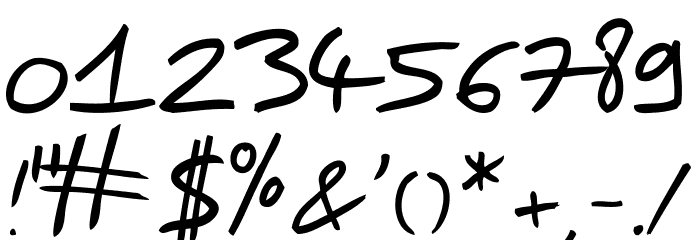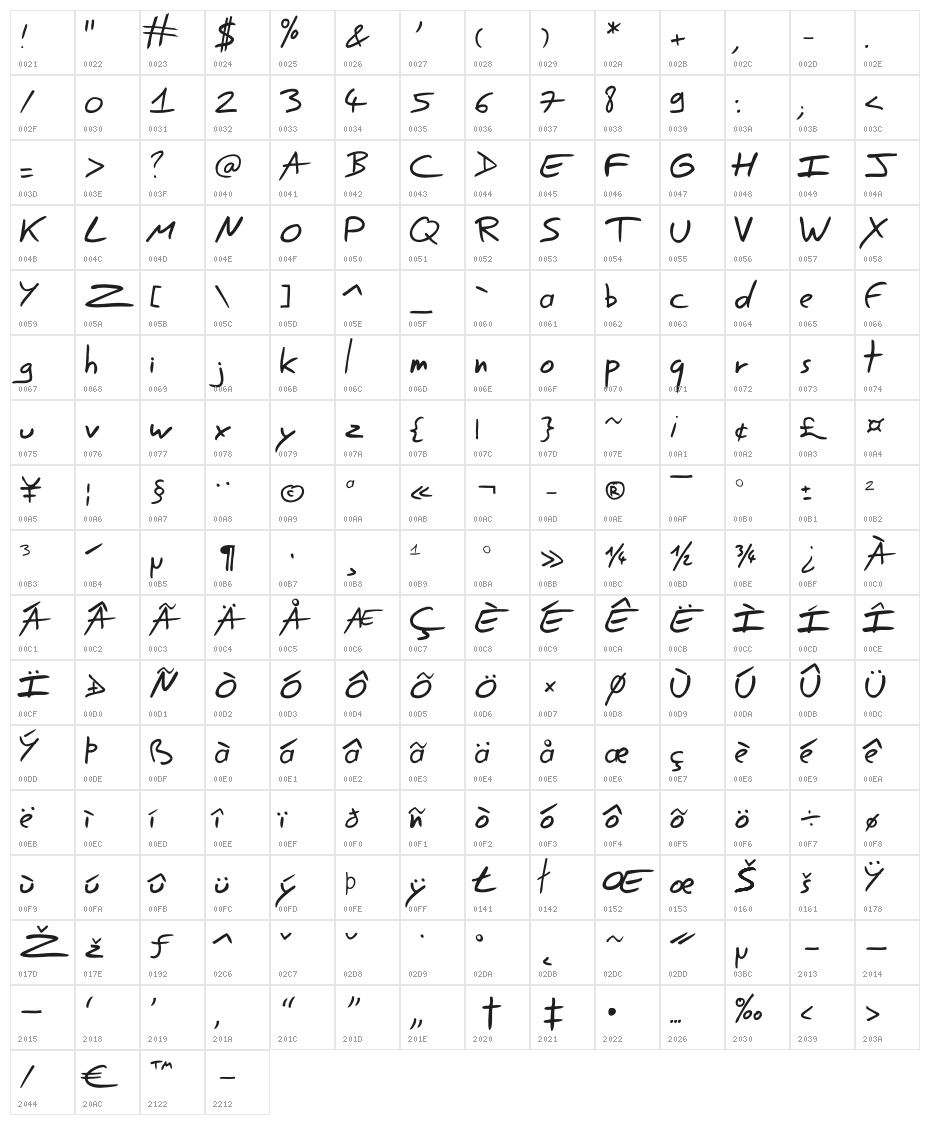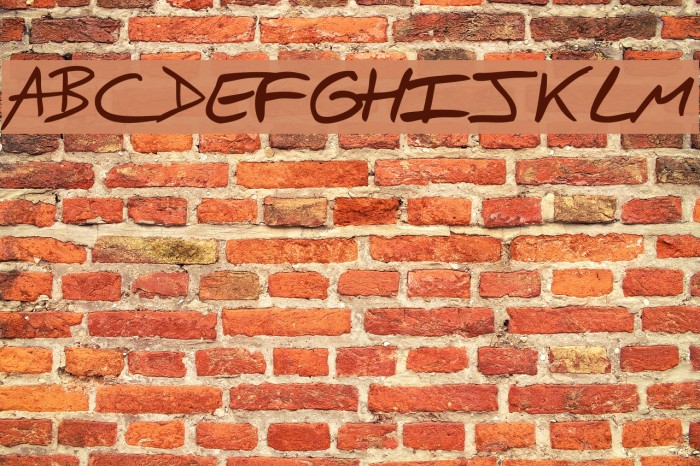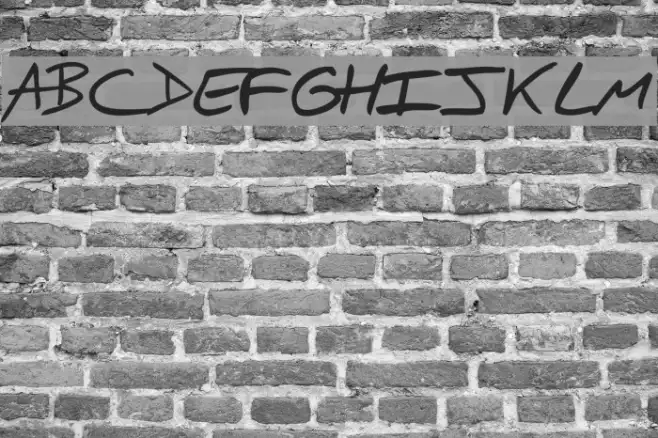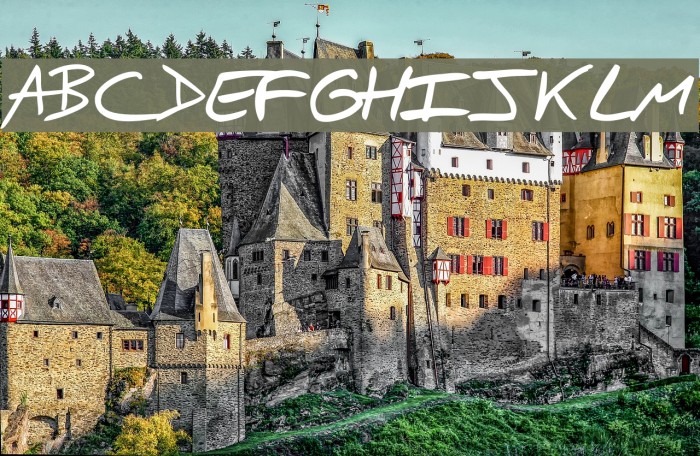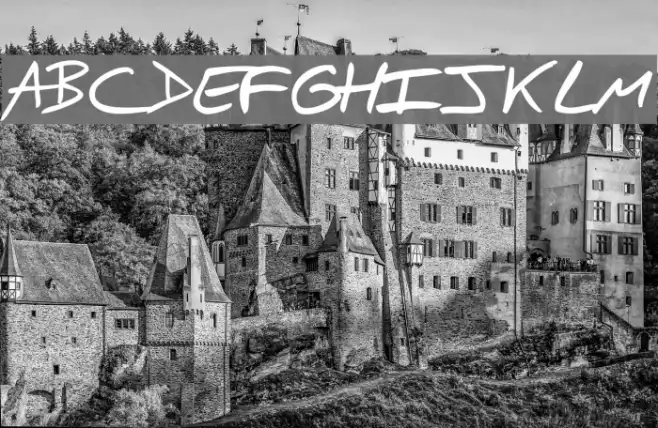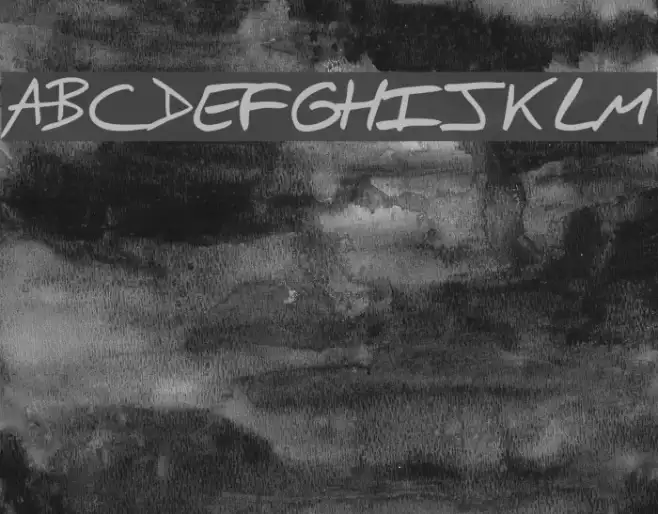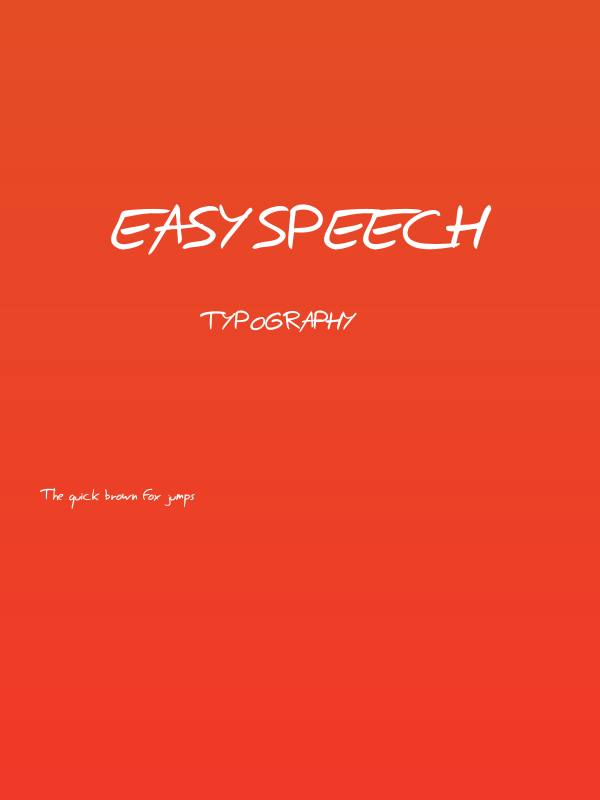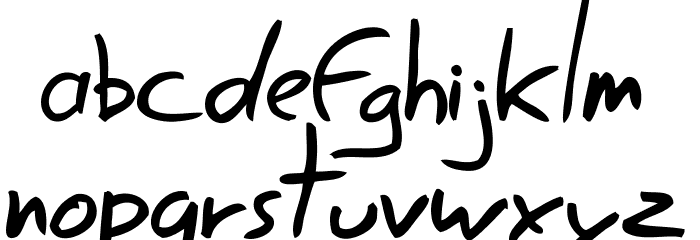
EasySpeech Font
EasySpeech Description
This font features a dynamic and energetic handwritten style, characterized by its fluid and slightly irregular strokes that convey a sense of spontaneity and creativity. The uppercase letters are bold and assertive, while the lowercase letters maintain a consistent flow, enhancing readability. Numbers and special characters are crafted with the same lively touch, making them stand out. The overall appearance is casual yet confident, suitable for projects that require a personal and approachable feel.
| Use Case | Logos, Headlines, Informal Invitations |
| Proposed Projects | Ideal for greeting cards, personal branding, creative posters, and social media graphics. |